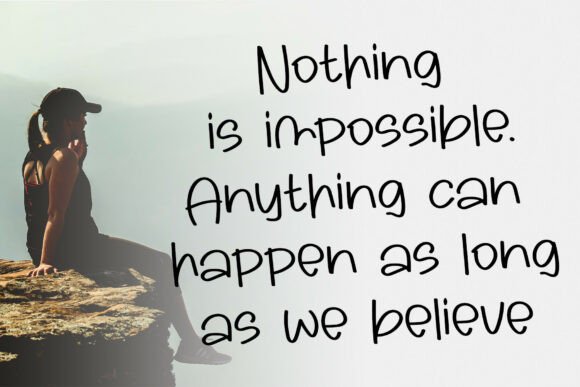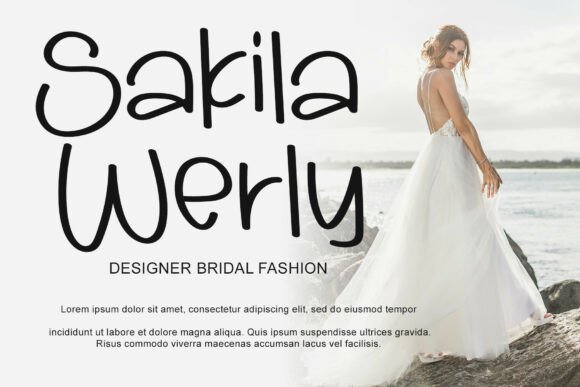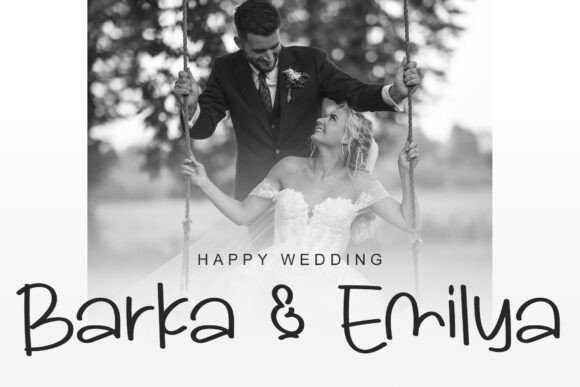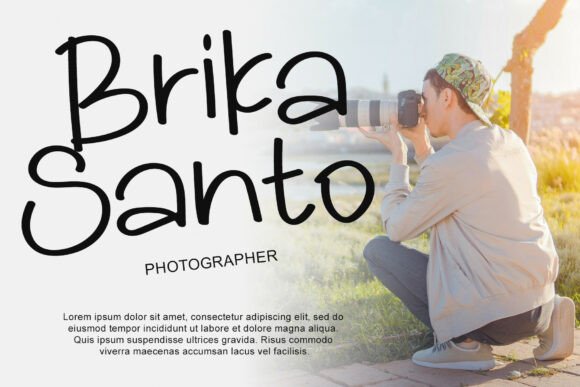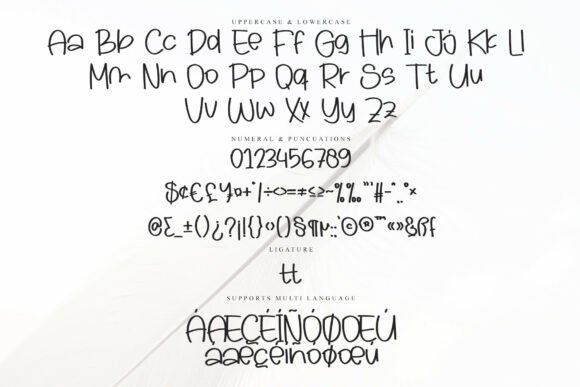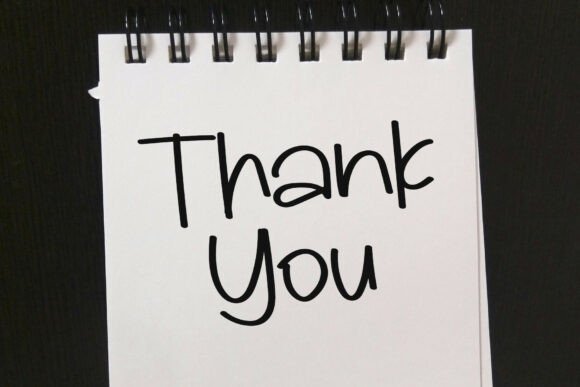
Bible Font: Elevate Your Designs with Elegance and Sophision
Are you a designer or crafter looking for a font that exudes elegance and sophistication? Look no further than the Bible font, a beautifully crafted display handwriting font that blends classic charm with a modern, artistic touch. In this article, we’ll explore the unique features of the Bible font, its uses, and why it’s the perfect choice for adding a touch of class and personality to your designs.
The Unique Features of Bible Font
The Bible font is characterized by its flowing strokes and well-balanced curves, which create a sophisticated yet approachable feel. Its elegant design makes it perfect for a variety of design projects, from wedding invitations and branding materials to packaging and digital media. The font’s modern, artistic touch sets it apart from more traditional fonts, giving it a unique and eye-catching quality.
What Makes Bible Font So Versatile?
One of the key features that makes the Bible font so versatile is its ability to be used in a variety of design contexts. Whether you’re creating a formal invitation or a playful digital graphic, the Bible font can adapt to suit your needs. Its elegant curves and flowing strokes make it perfect for:
- Packaging design, including labels and product tags
- Digital media, such as social media graphics and blog headers
Why Choose Bible Font for Your Designs?
So why choose the Bible font for your designs? Here are just a few reasons:
- Elegance and sophistication: The Bible font exudes elegance and sophistication, making it perfect for designs that require a touch of class.
- Versatility: The font’s versatility makes it suitable for a wide range of design projects and contexts.
- Personality: The Bible font has a unique and artistic quality that adds personality to your designs.
- Easy to read: Despite its elegant design, the Bible font is easy to read, making it perfect for body text as well as headings.
Tips for Using Bible Font in Your Designs
Here are a few tips for using the Bible font in your designs:
- Use it as a headline font: The Bible font is perfect for headlines and titles, where its elegant curves and flowing strokes can really shine.
- Pair it with a sans-serif font: For body text, pair the Bible font with a clean sans-serif font to create a striking contrast.
- Experiment with colors and textures: The Bible font looks great in a variety of colors and textures, so don’t be afraid to experiment and find the perfect combination for your design.
In conclusion, the Bible font is a beautifully crafted display handwriting font that blends elegance with a modern, artistic touch. Its flowing strokes and well-balanced curves create a sophisticated yet approachable feel, making it the perfect font choice for designers and crafters who want to add a touch of class and personality to their designs. With its versatility, elegance, and personality, the Bible font is sure to become a favorite in your design arsenal.